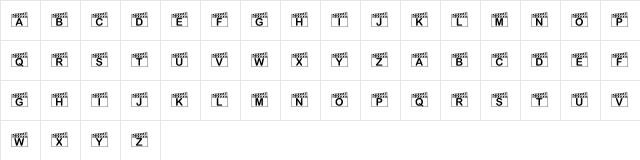
KR Action! Regular
Design Context for KR Action! Typeface
KR Action! is a composed and adaptable typeface that performs quietly and consistently across a wide range of design contexts.